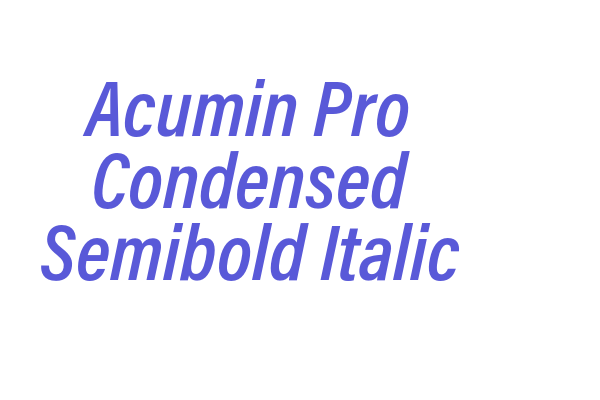
Acumin Pro Condensed Semibold Italic is a sleek and modern sans-serif font designed by Robert Slimbach. With its condensed style and semibold weight, this font is perfect for adding emphasis and sophistication to headings, titles, and branding materials. Ideal for projects that require a clean and contemporary look, Acumin Pro Condensed Semibold Italic is a versatile choice for designers seeking a professional and stylish typeface.
Font Name: Acumin Pro Condensed Semibold Italic
Designer: Robert Slimbach
Font Family: Acumin Pro Condensed